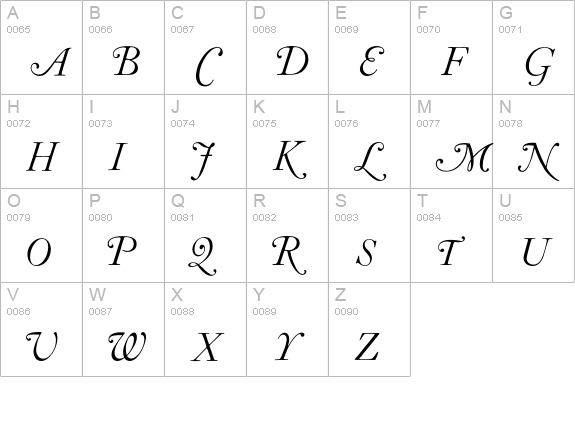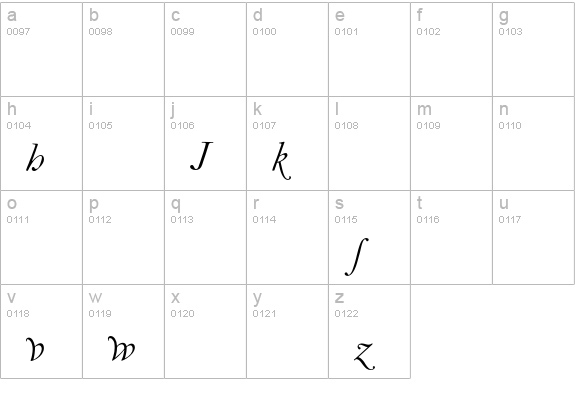
CaslonQW-Italic Font Details
CaslonQW-Italic is a distinctive, italic variant in the CaslonQW typeface family \xE2\x80\x94 well suited to design and typography projects.
CaslonQW-Italic font is an exquisite and elegant typeface that exudes sophistication and charm. With its slanted and graceful italic design, this font is perfect for adding a touch of class to any project. The flowing curves and delicate serifs of CaslonQW-Italic create a timeless appeal that is both classic and modern. What sets CaslonQW-Italic font apart is not only its beauty but also the fact that it is available for free download at FontsMarket.com. This means that you can easily access this stunning font for all your design needs without any cost. Whether you are working on a formal invitation, a stylish logo, or a creative branding project, CaslonQW-Italic font will elevate your work to new heights. Embrace the beauty and versatility of CaslonQW-Italic font and let your creativity shine with this exquisite typeface that is both timeless and free to use. Download it today at FontsMarket.com and add a touch of elegance to your designs effortlessly.